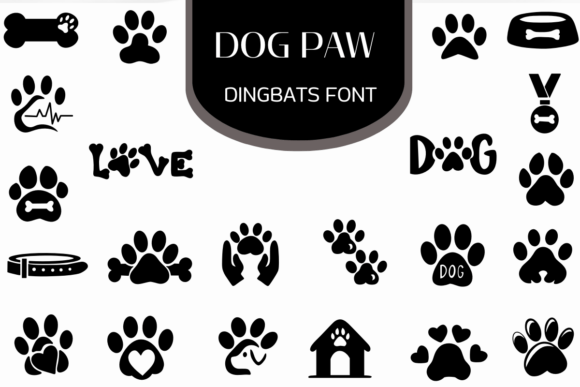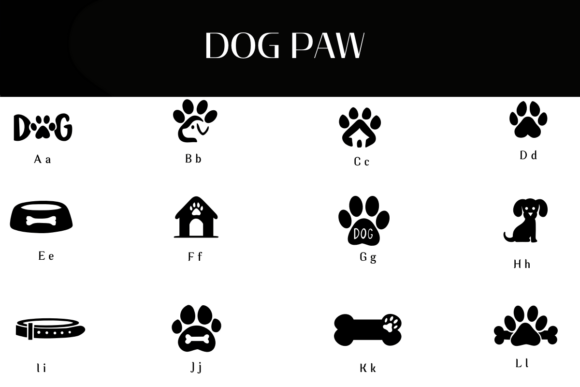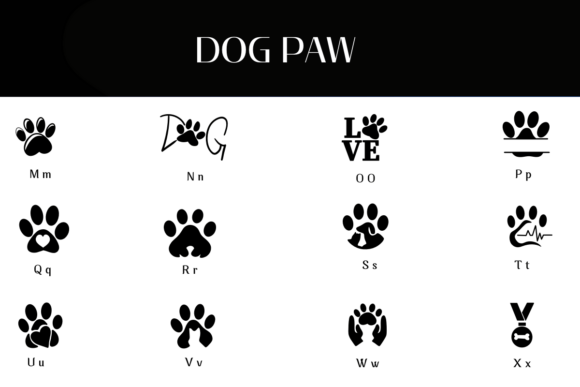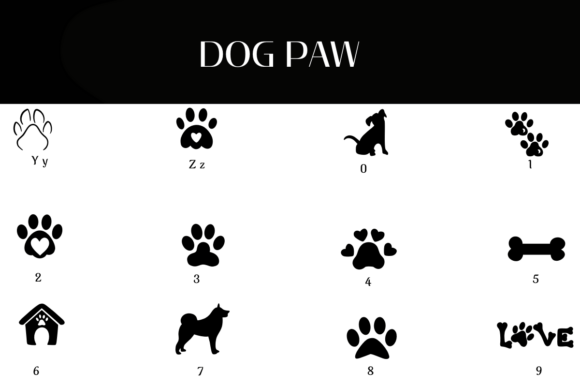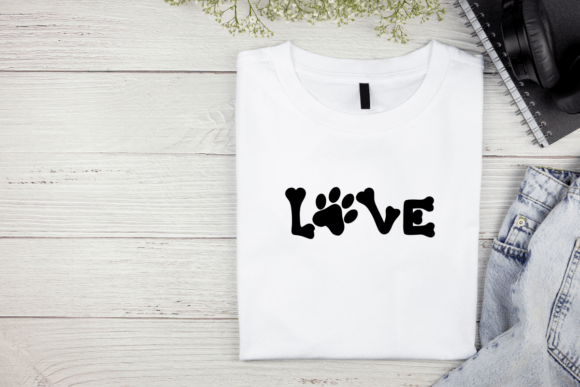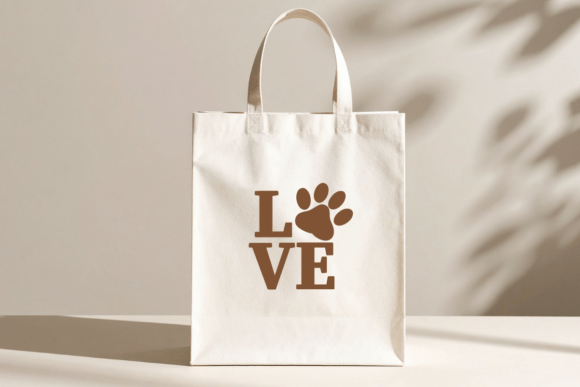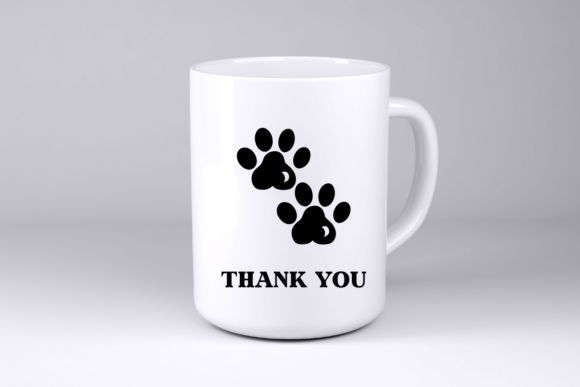
Get Ready to Unleash Your Creativity with Dog Paw Font
Do you ever find yourself stuck in a creative rut, staring at a blank page or screen, wondering where to begin? I know I do! But then, something magical happens. A font catches your eye, and suddenly, the ideas start flowing. For me, that font is Dog Paw Font – a lovely dingbats font that adds a touch of whimsy to any project.
Dog Paw Font is a versatile dingbats font that’s perfect for adding a personal touch to your designs. Whether you’re creating a logo, a greeting card, or a social media graphic, this font is sure to bring a smile to your face and delight your audience. As a designer, you’ll love the flexibility and charm that Dog Paw Font brings to your creative projects.
Dog Paw Font Key Features
- Unique Characteristics: The font features a paw print design element, adding a fun and playful touch to any text-based design. The paw print is customizable, allowing designers to adjust its size, color, and position.
Design Review: Dog Paw Font
At first glance, the Dog Paw Font ✨ seems like a cute and playful addition to any project. Its rounded edges and stylized design elements evoke a sense of friendliness and approachability. The font is well-suited for designs that target pet owners or families with young children.
- ✨ The font’s rounded design elements add a touch of whimsy and playfulness to any project.
- ✨ The font’s simplicity makes it easy to read and understand, even at smaller font sizes.
- ✨ The font’s stylized design elements can be easily customized to fit the specific needs of your project.
- ⚠️ The font may be too childish for more formal or professional projects.
- ⚠️ The font’s design elements may not be scalable for larger font sizes.
- ⚠️ The font may not be suitable for projects that require a more serious or sophisticated tone.
Overall, the Dog Paw Font is a cute and playful addition to any project. While it may have some limitations, it’s well-suited for designs that target a younger audience or pet owners. With some careful consideration, this font can be a great asset for your next project.
For best results, use the Dog Paw Font in conjunction with cute and playful graphics, such as paw prints, bones, or dog toys.
Experiment with different font sizes, colors, and styles to create a unique and eye-catching design.
The Dog Paw Font is ideal for:
Designing pet-themed merchandise, such as t-shirts, mugs, or stickers.
Creating invitations or announcements for dog-related events, such as adoption fairs or pet birthdays.
Adding a playful touch to